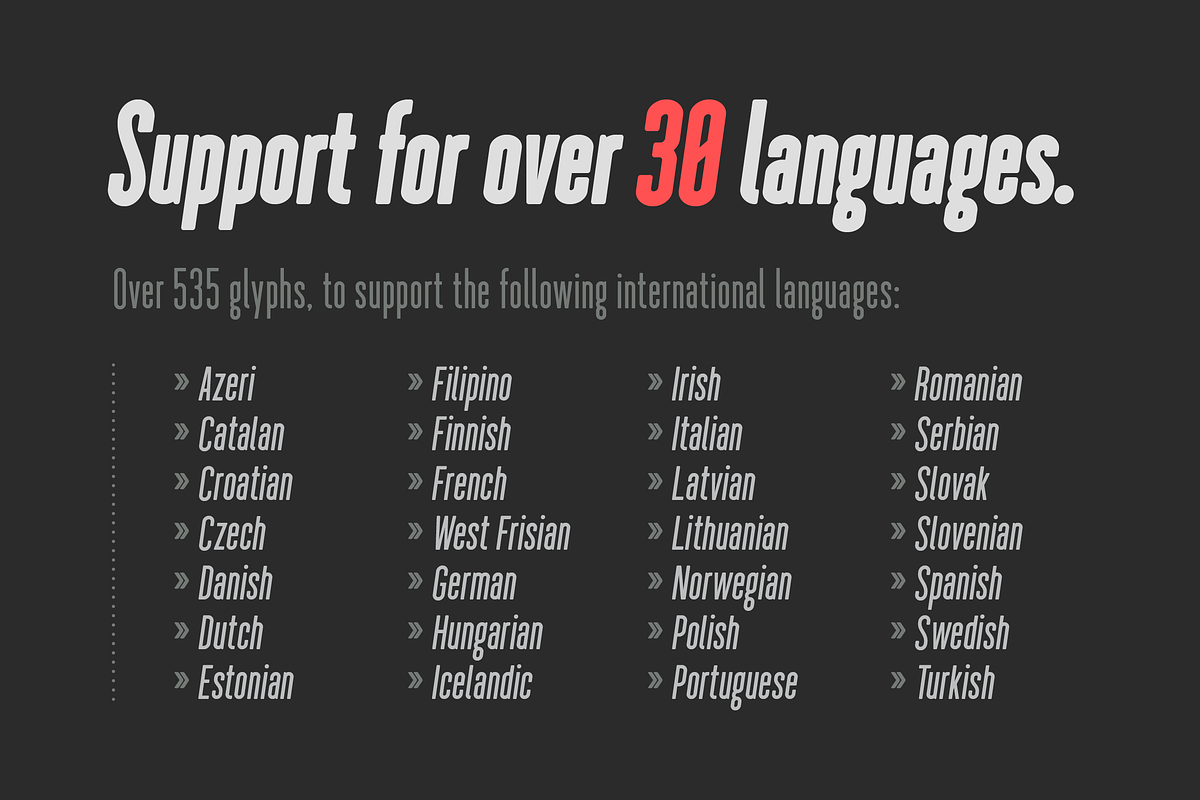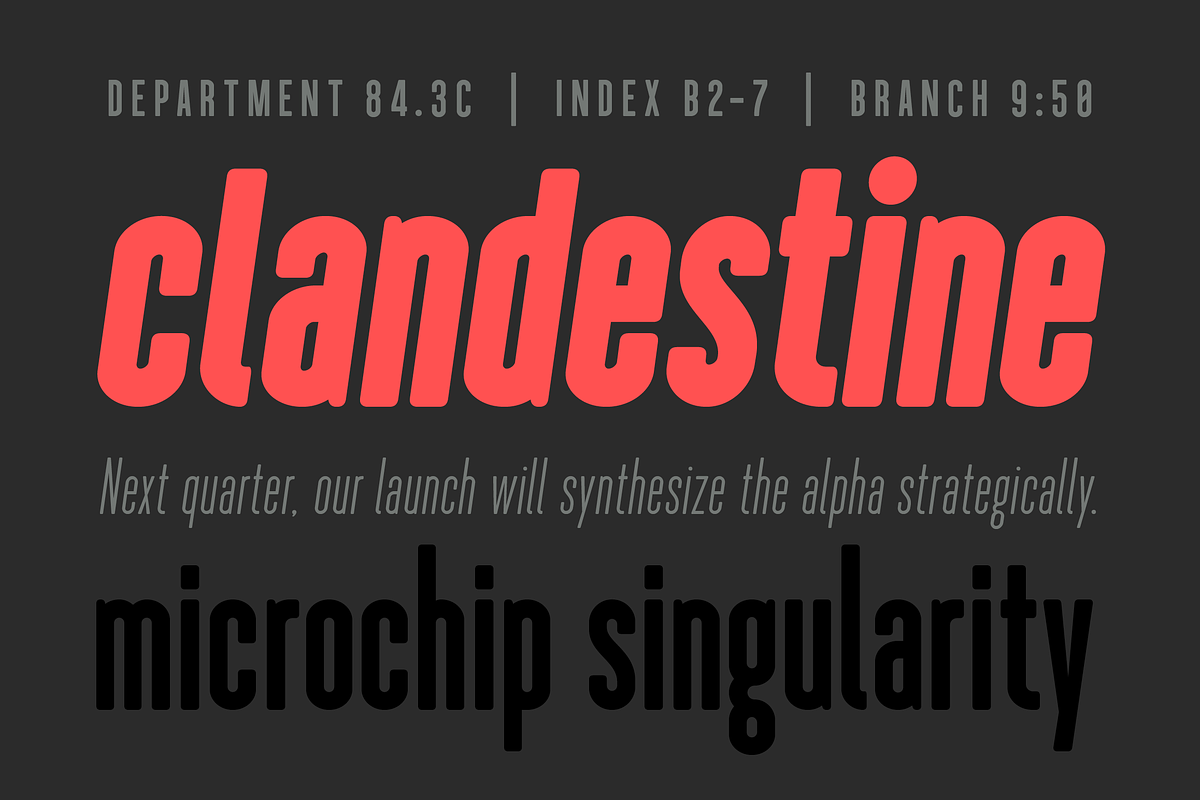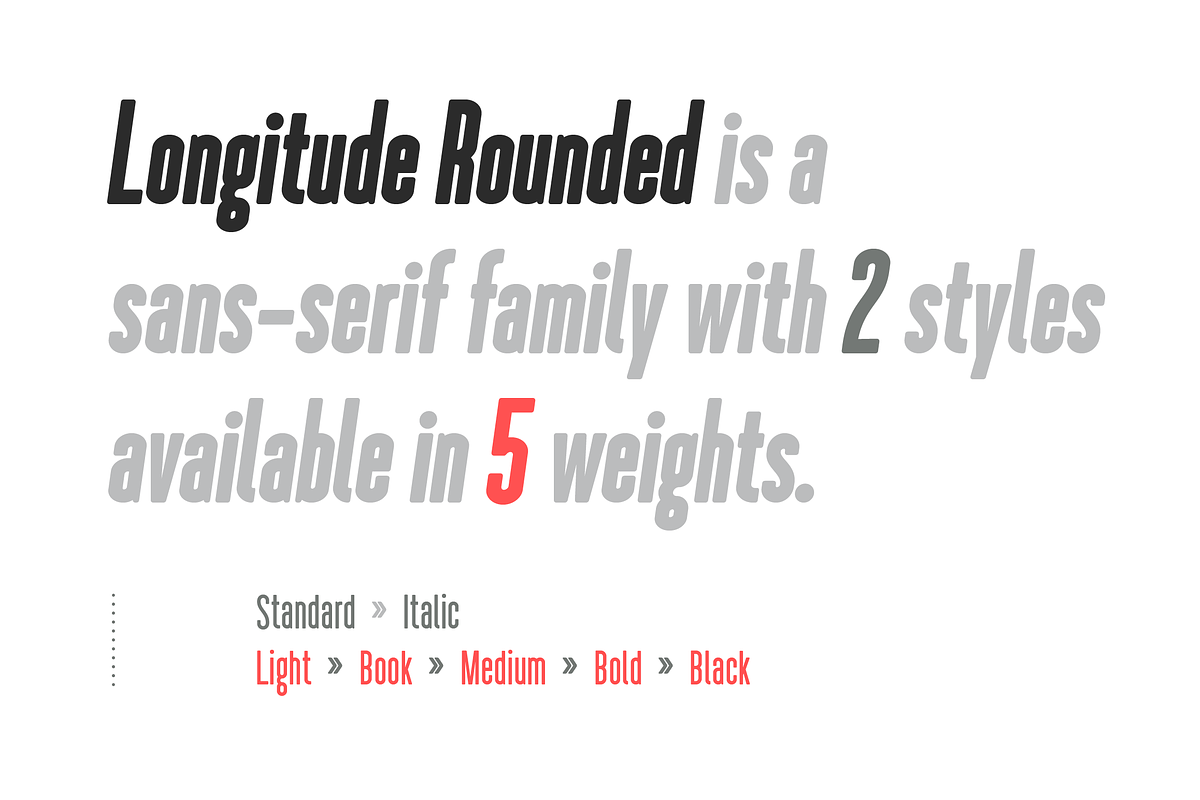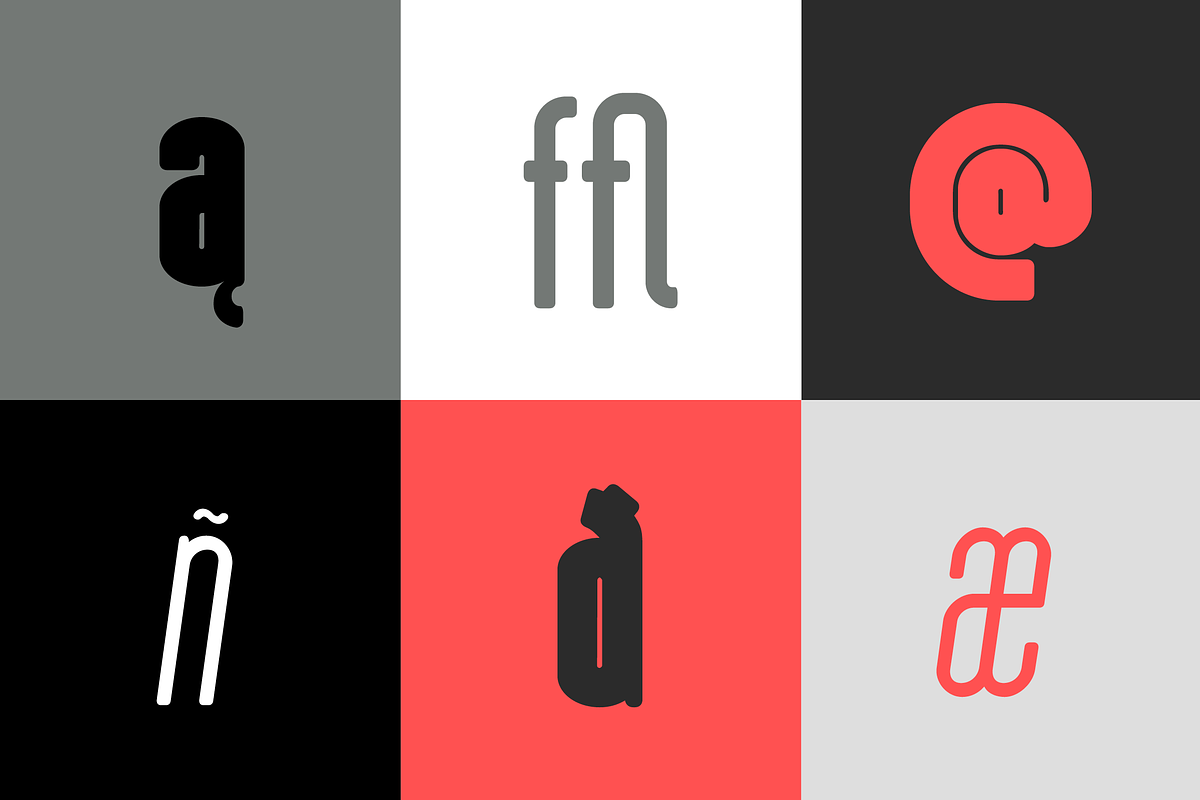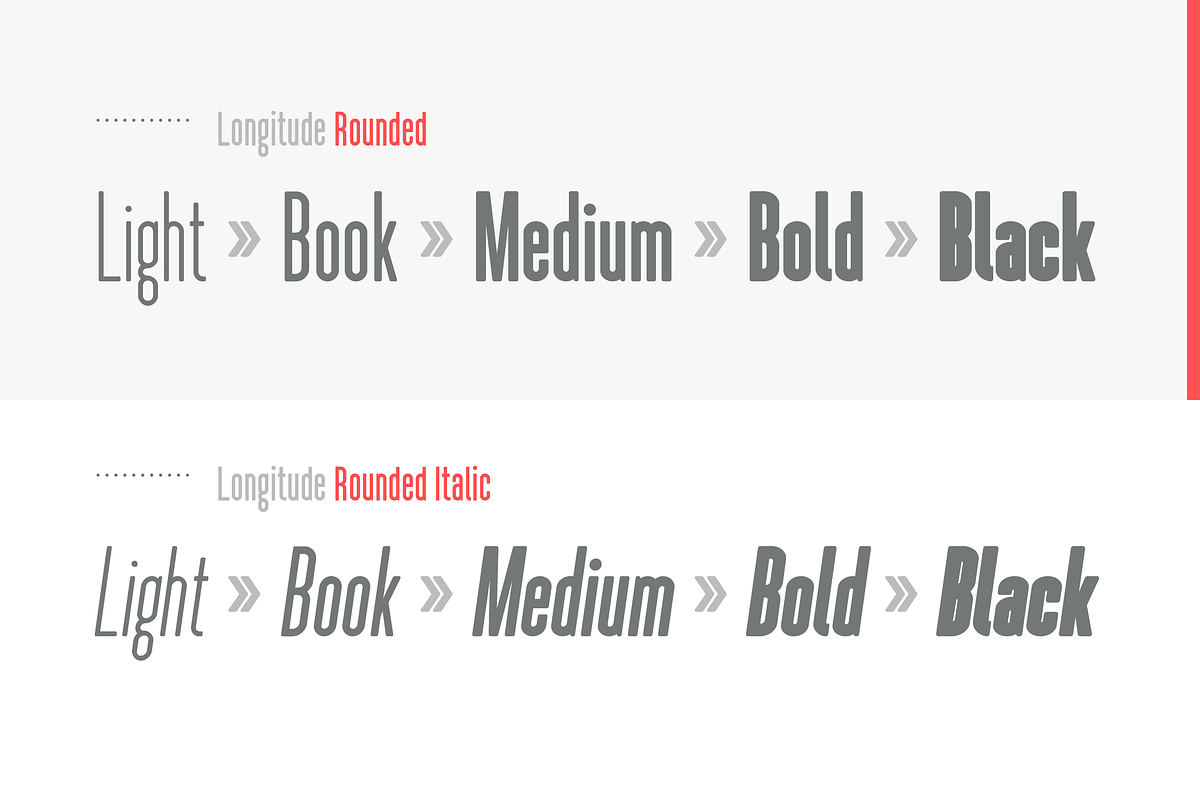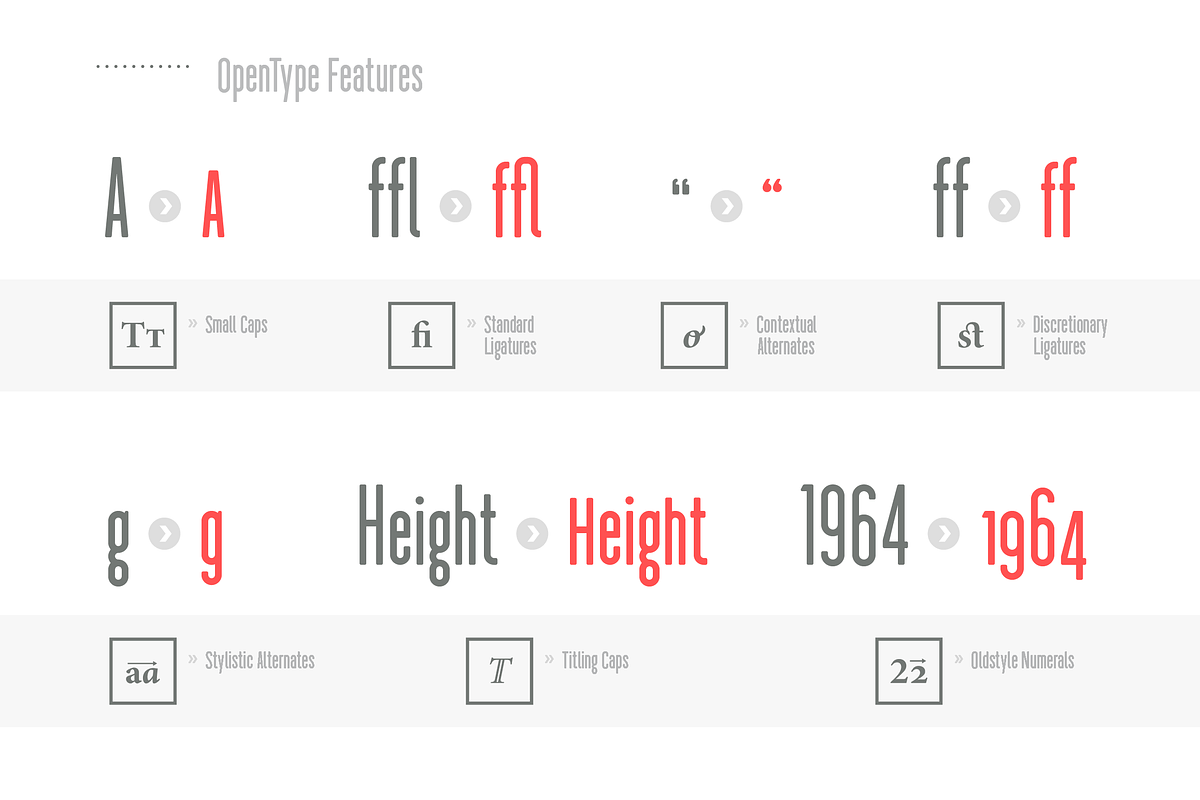
Longitude Rounded Font Family
Longitude Rounded Font Family by lukelisi is a font selected for branding, posters, packaging, typography.
- This extremely versatile family contains a wide variety of unique OpenType features including Standard Ligatures, Contextual Alternates, Dis
- The family's extensive character map includes 535 glyphs and is optimized for over 30 world languages.
Why Longitude Rounded Font Family is worth a look
Longitude Rounded Font Family by lukelisi fits naturally into Branding, posters, packaging, typography.